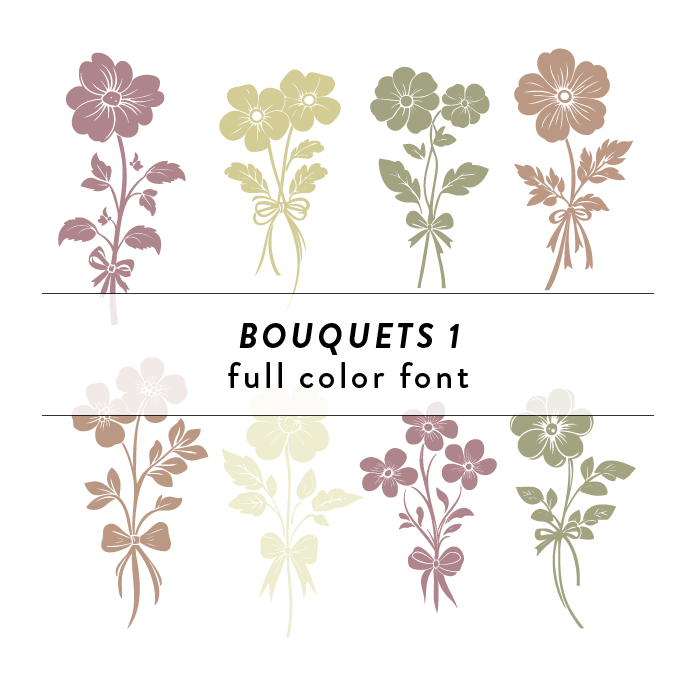
Bouquets 1 Full Color Font is a whimsical and elegant font design inspired by blooming flowers. Its delicate and intricate floral details make it perfect for wedding invitations, engagement announcements, and craft projects. The font adds a touch of romance and sophistication to any design with its vibrant colors and intricate floral elements.This font is a OTF craft font that will appear in color only when used with the silhouette software.